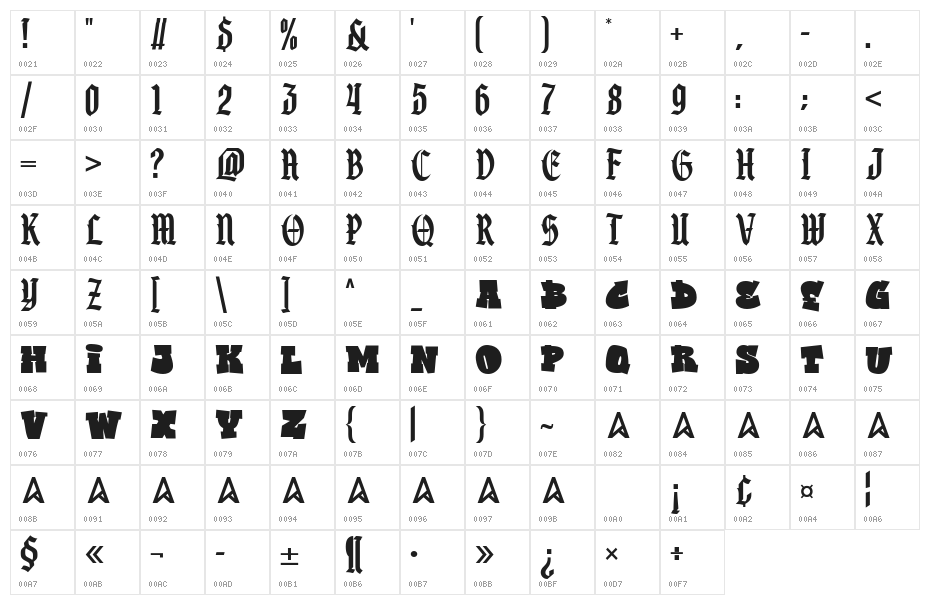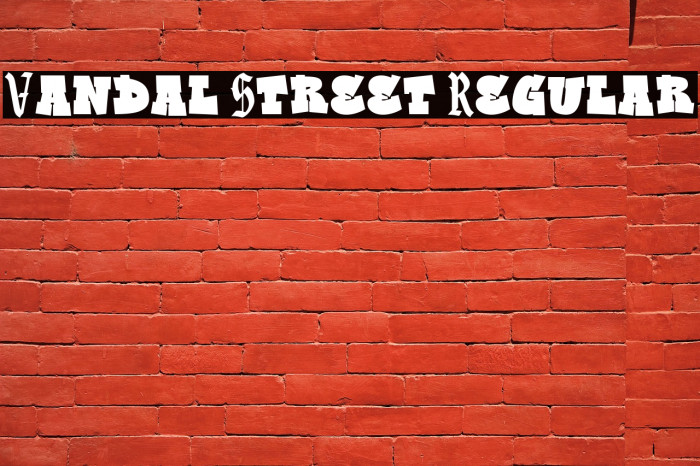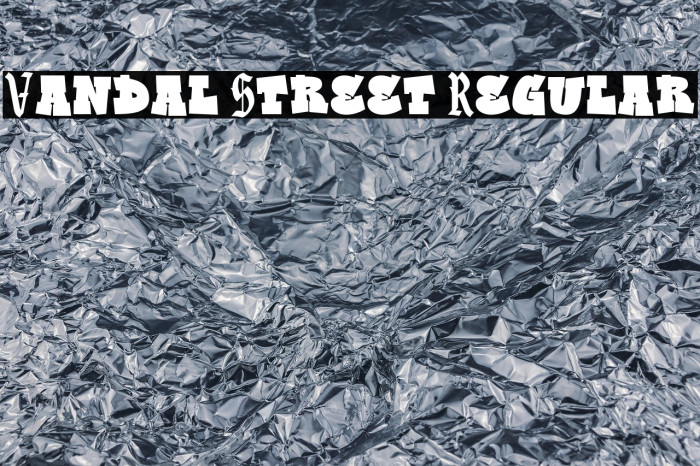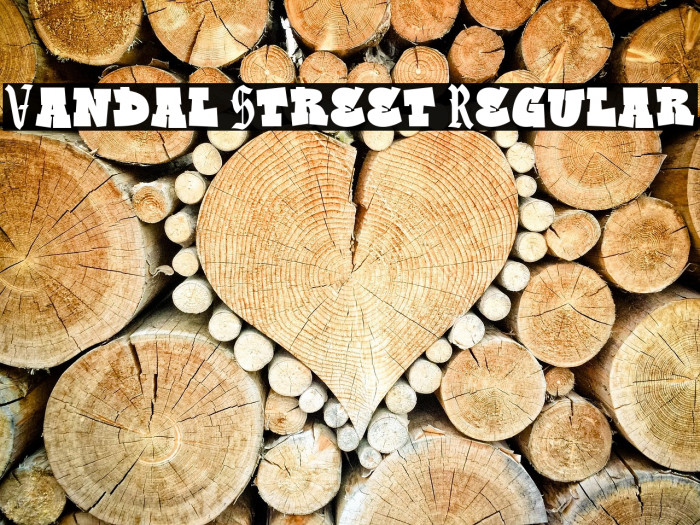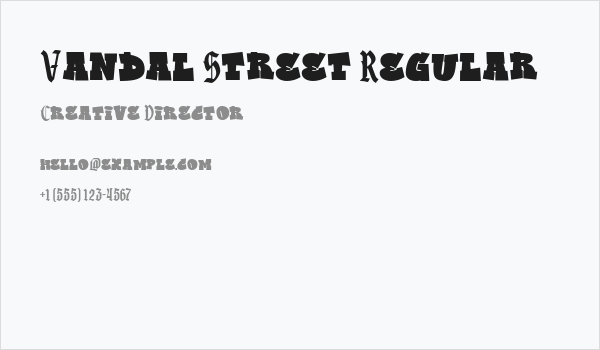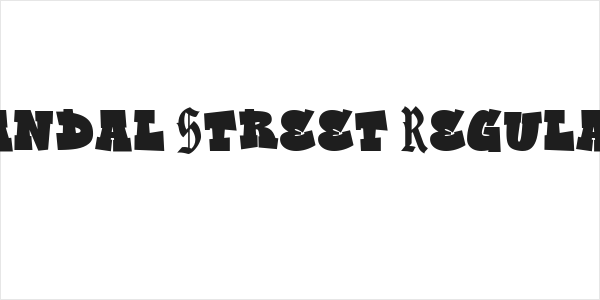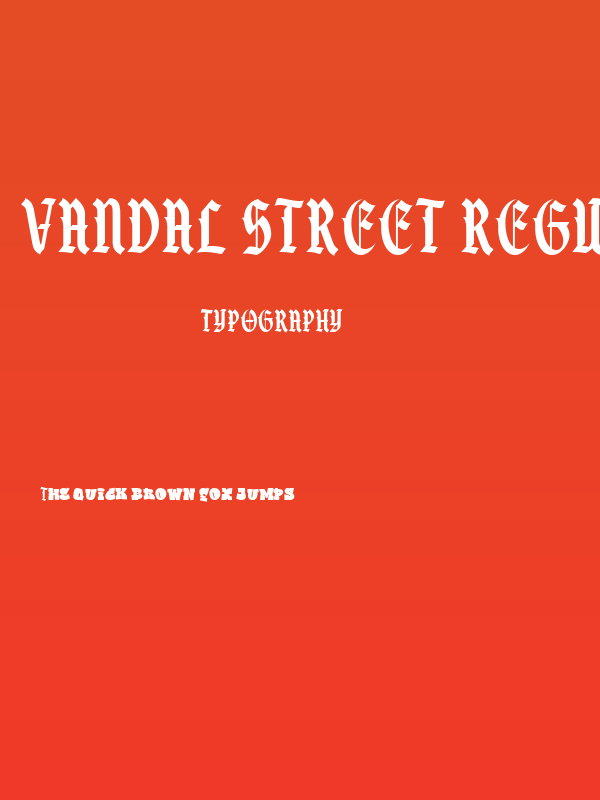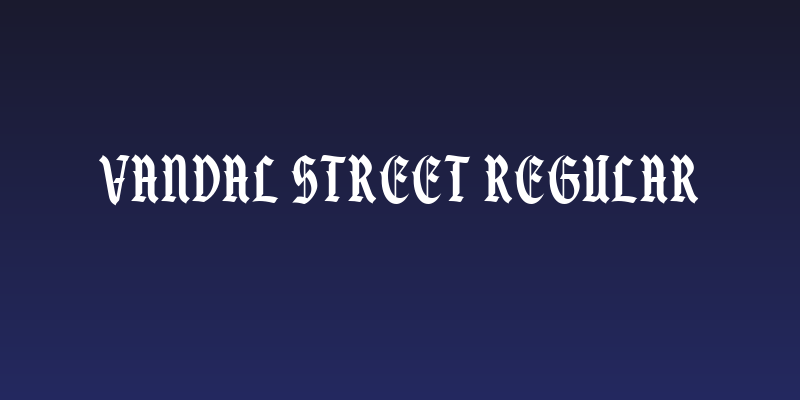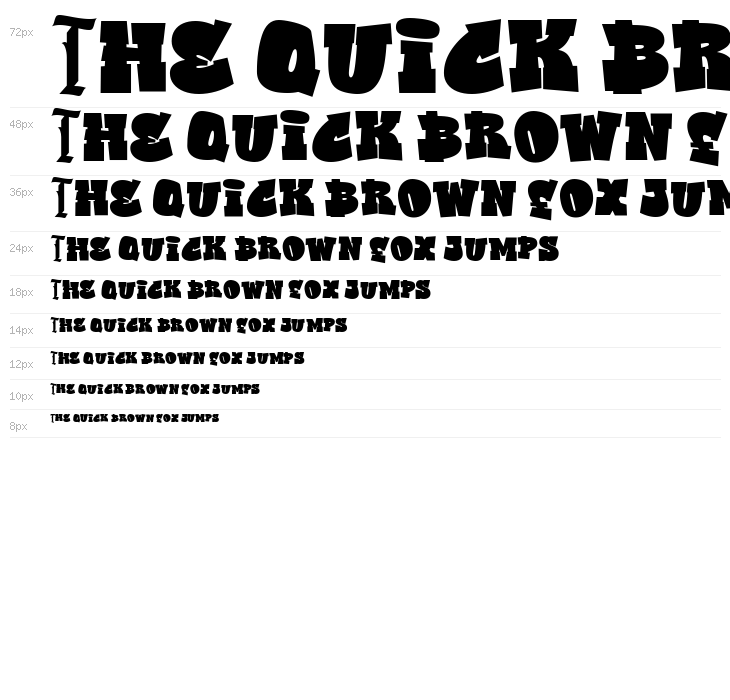
Vandal Street Regular Font
Vandal Street Regular Description
This font features a bold and striking design with a strong blackletter influence, characterized by sharp, angular lines and dramatic serifs. The uppercase letters are particularly ornate, with a medieval flair that evokes a sense of history and tradition. The lowercase letters maintain the same boldness, ensuring consistency across the typeface. Numerals and special characters are equally bold, making them stand out prominently. This font is ideal for projects that require a touch of gothic or vintage style, such as posters, logos, or branding that aims to convey strength and authority.
| Proposed Projects | Ideal for posters, logos, branding, and any project needing a gothic or vintage touch. |